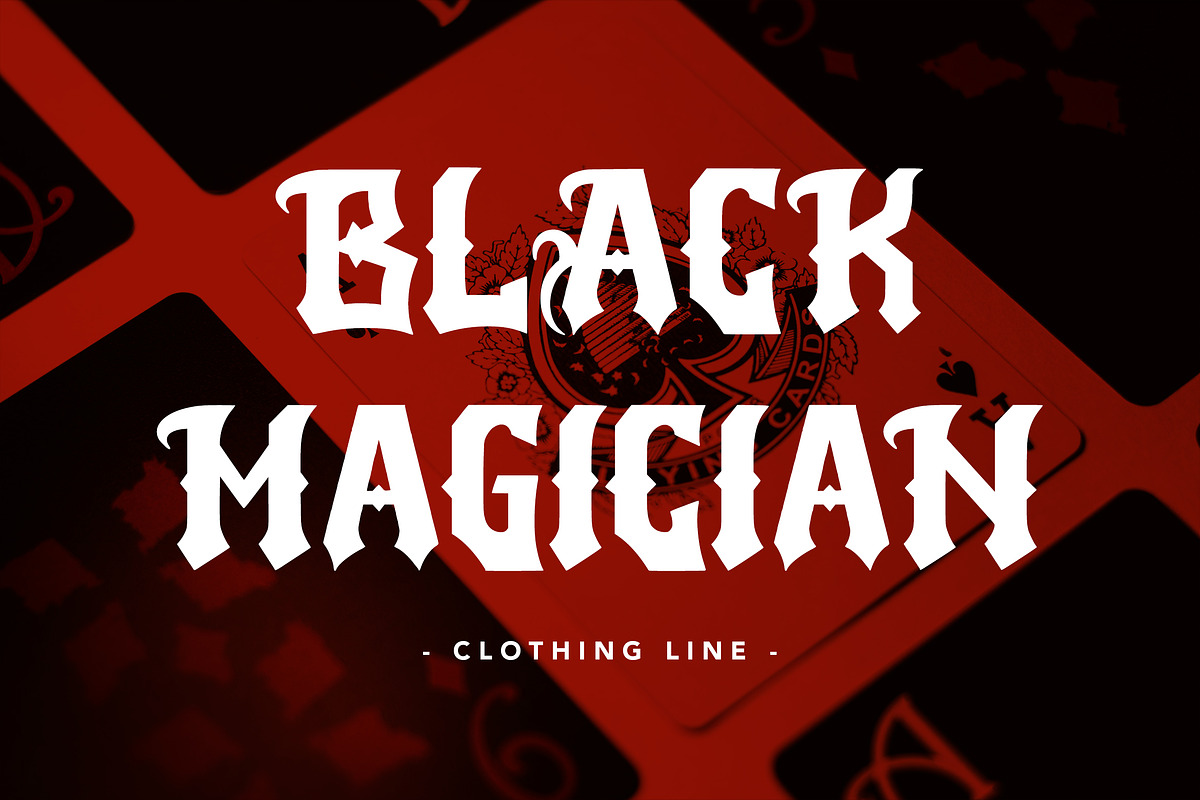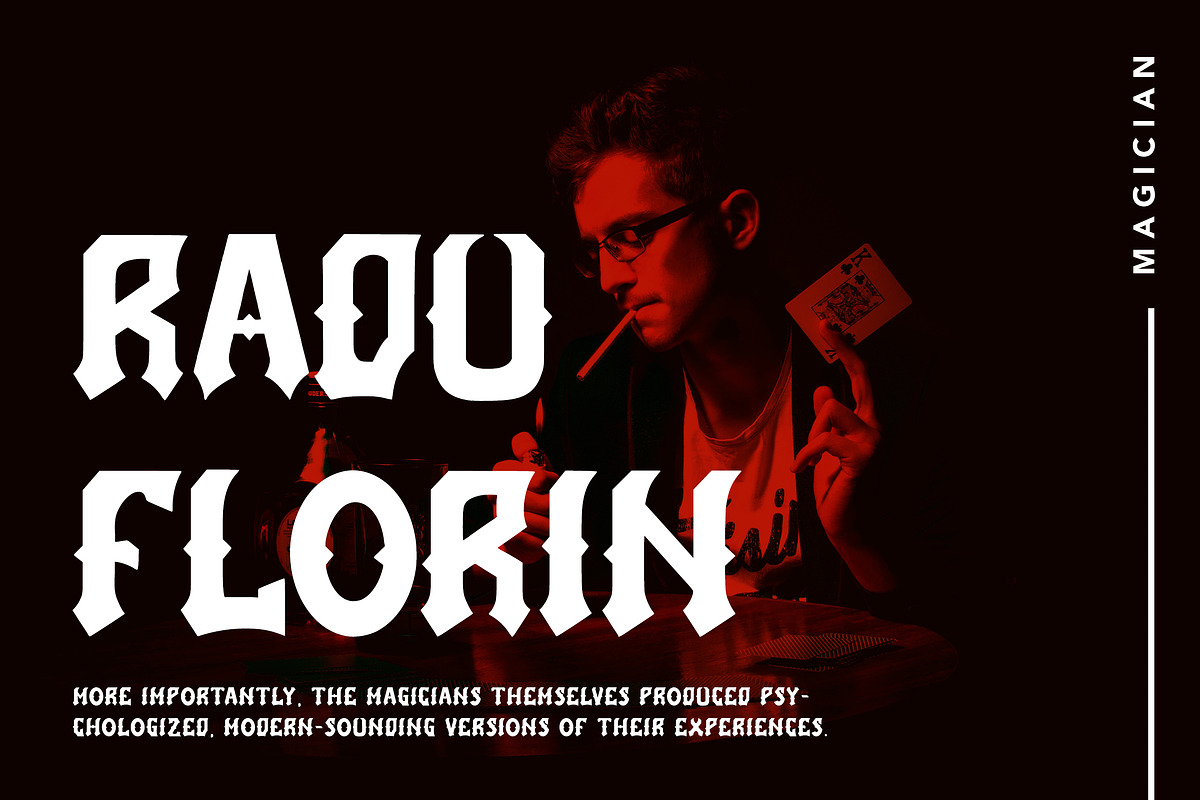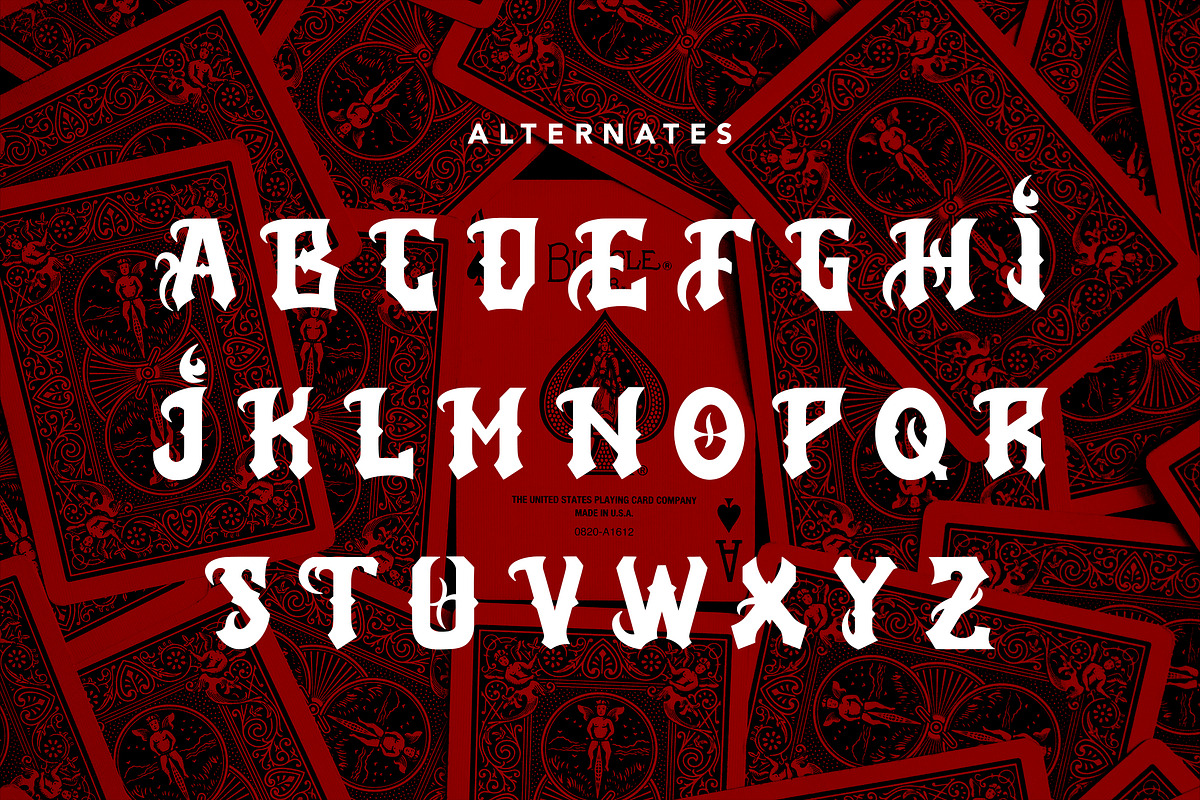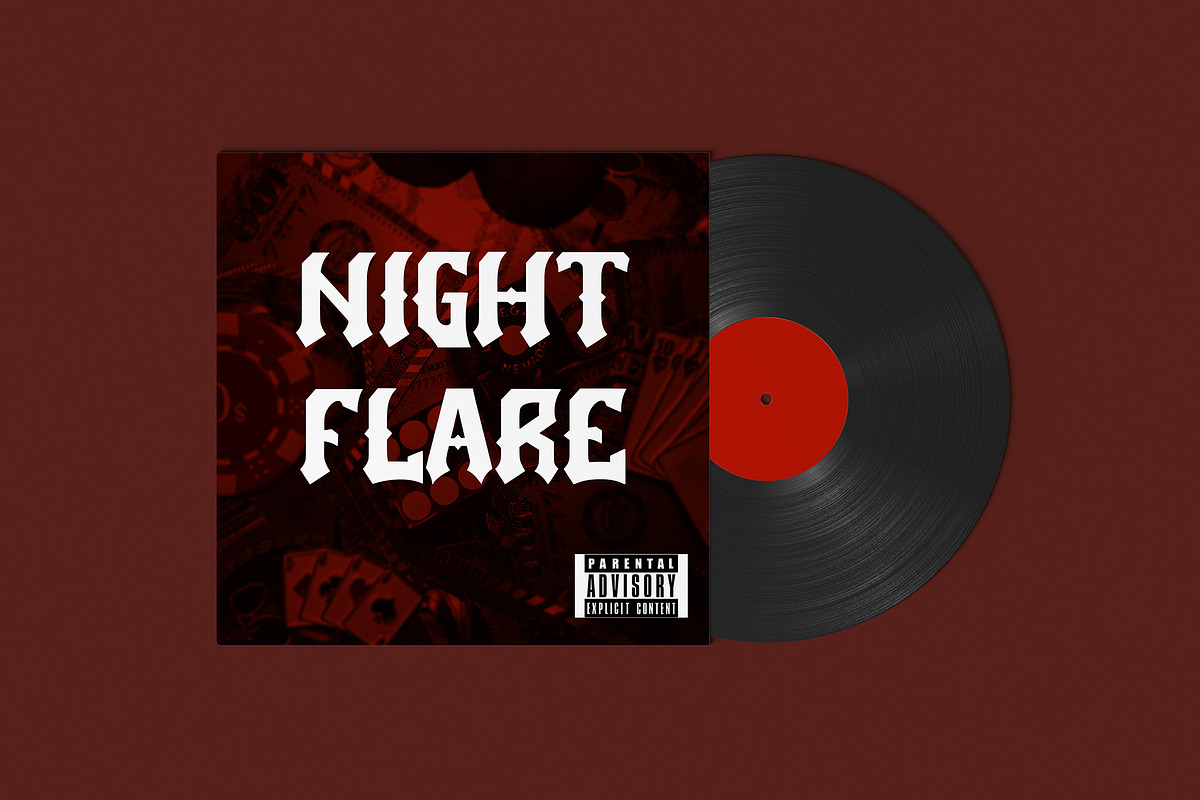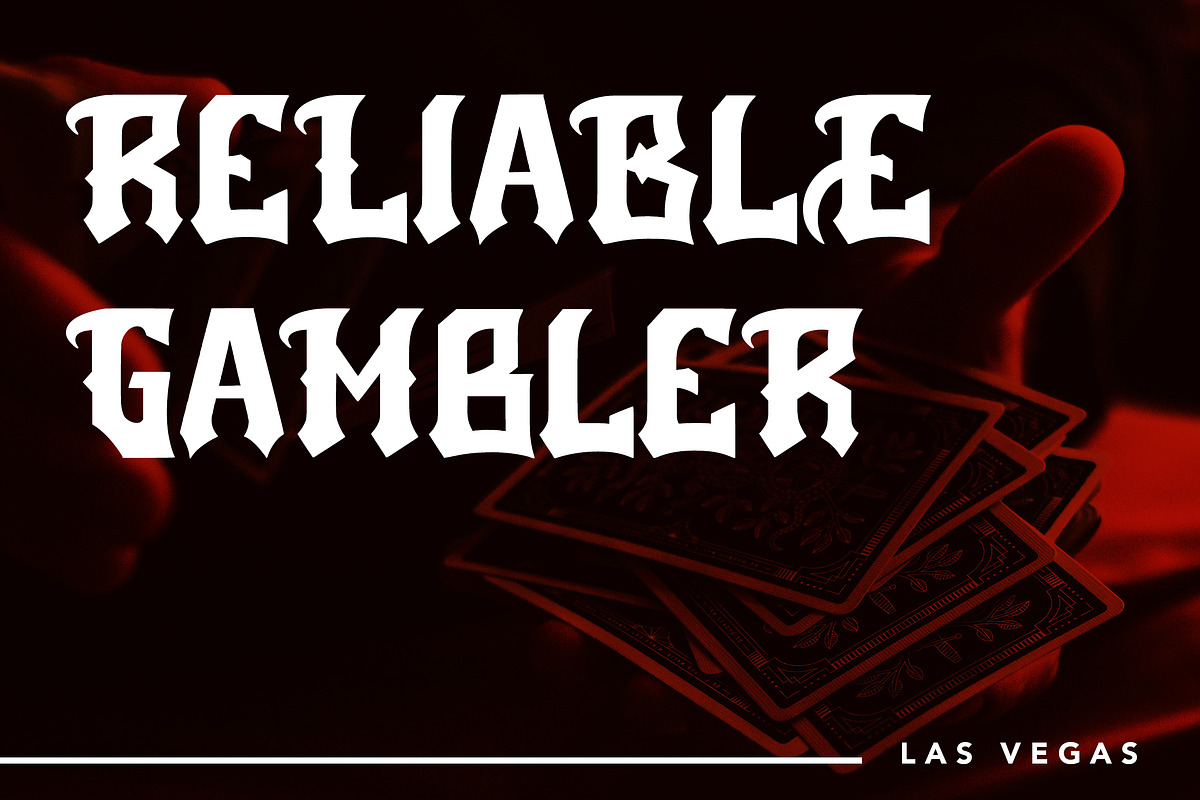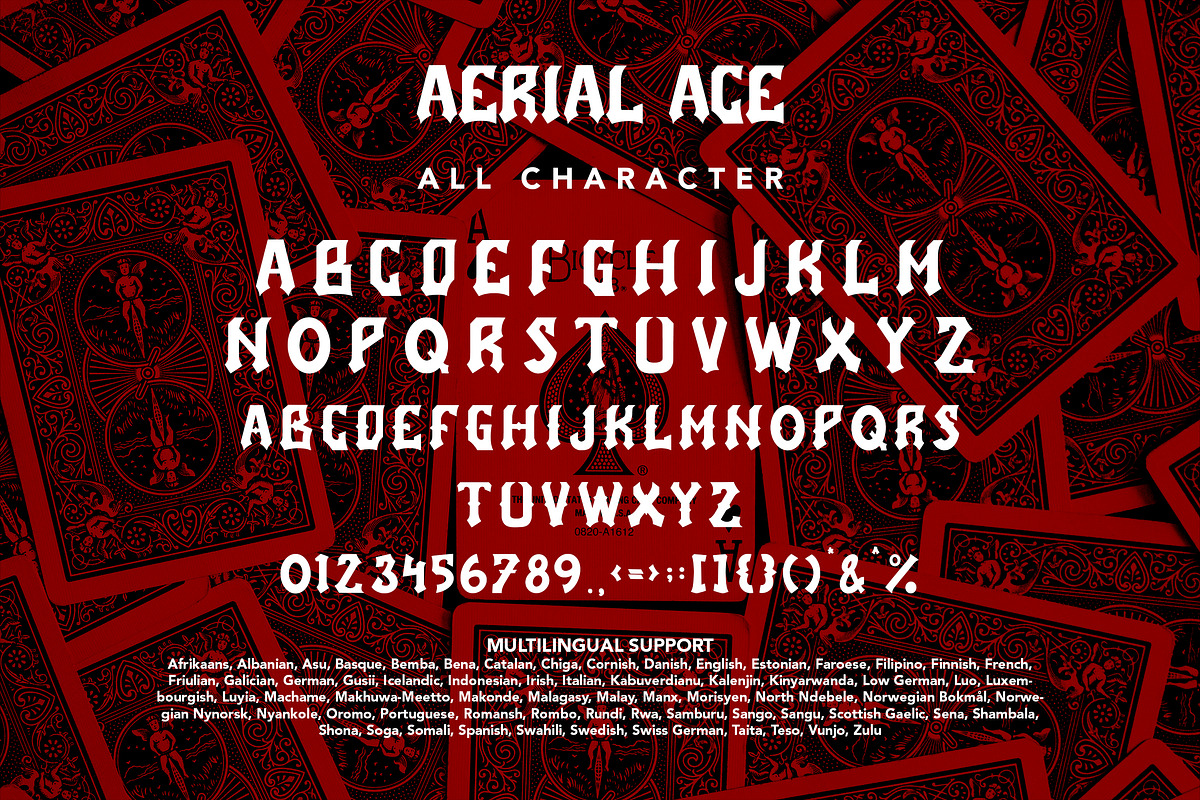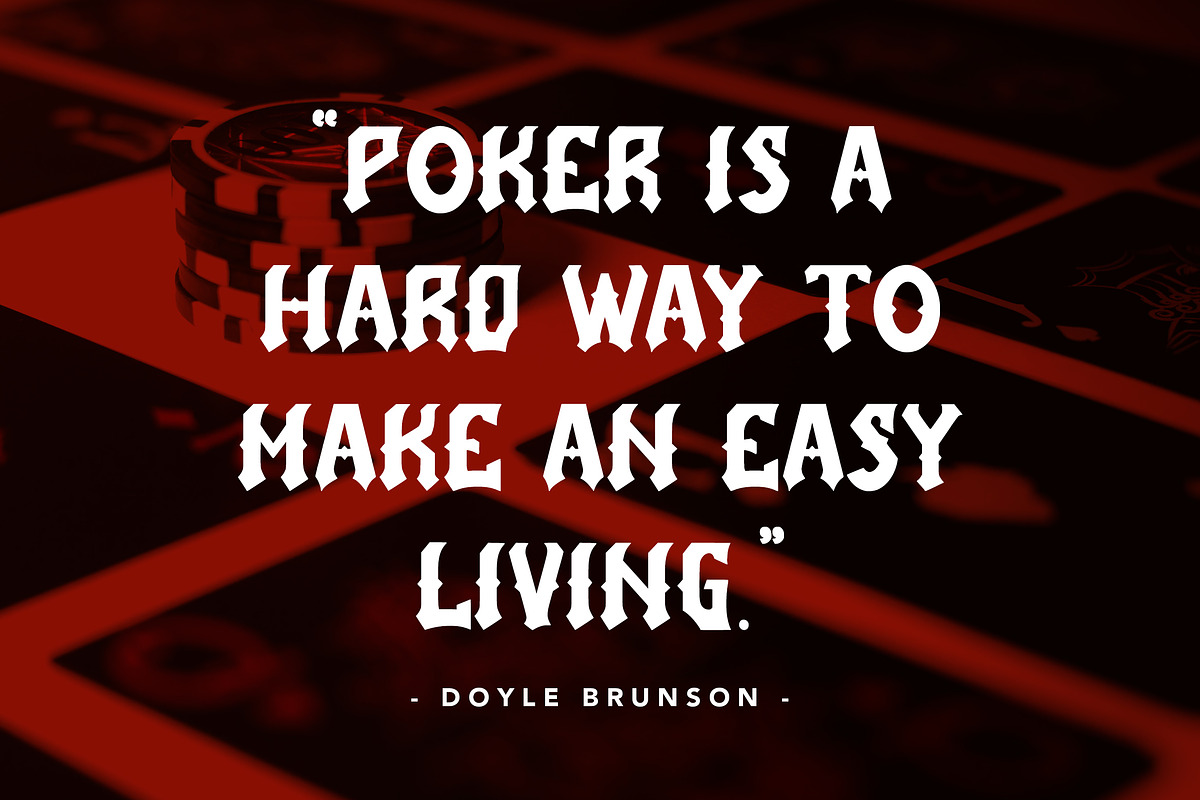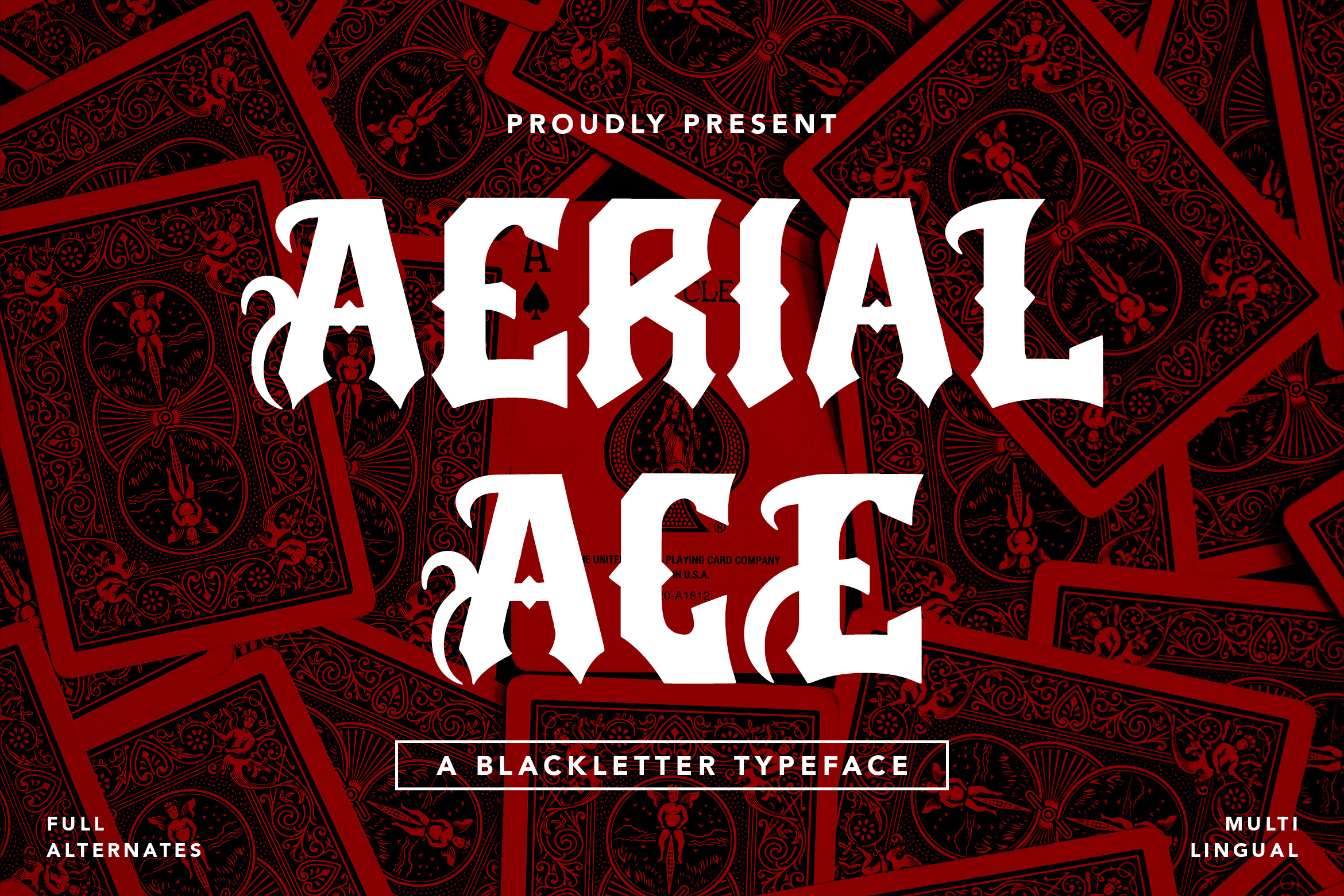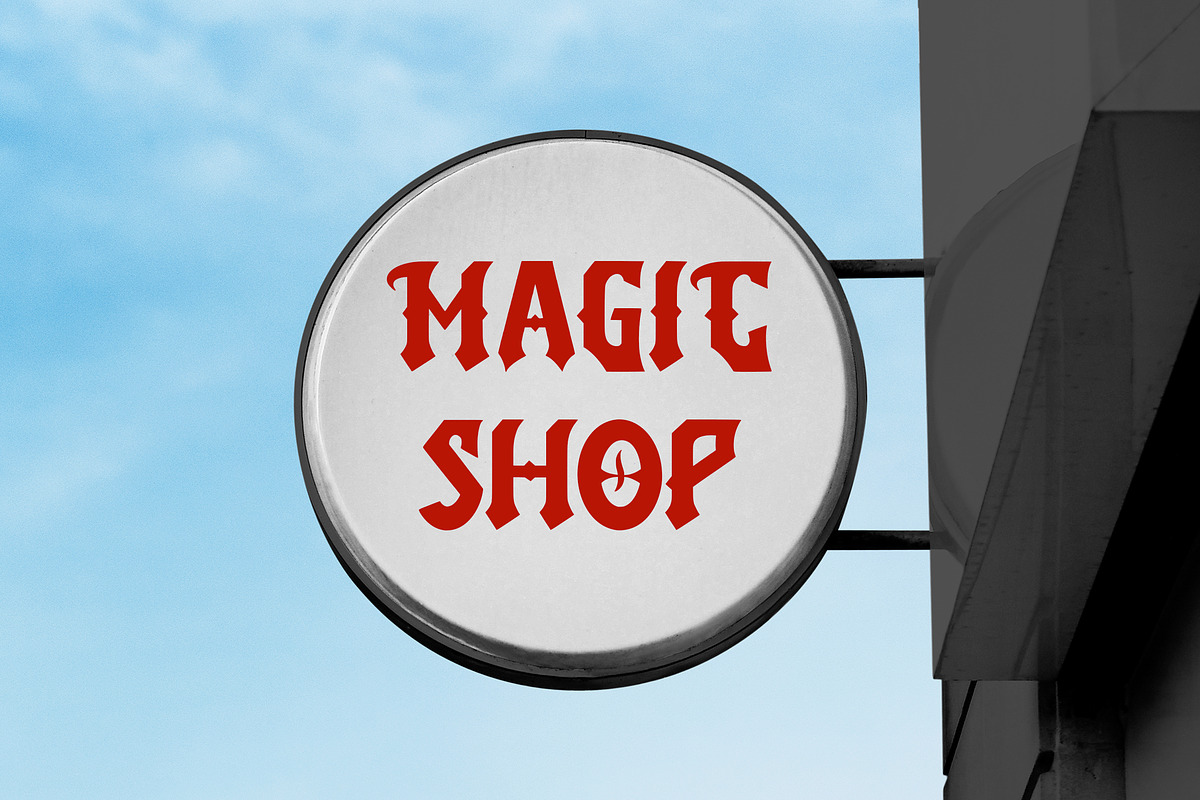
AerialAce- Blackletter Typeface Font
AerialAce - Blackletter Typeface Font contains a lowercase, uppercase, symbol, and also supports multi-language. There’s a lot of ligature in this font. AerialAce - Blackletter Typeface Font also comes with ligatures, stylistic alternates and many more. this font suitable for fashion, branding, catalog and other design that you want.